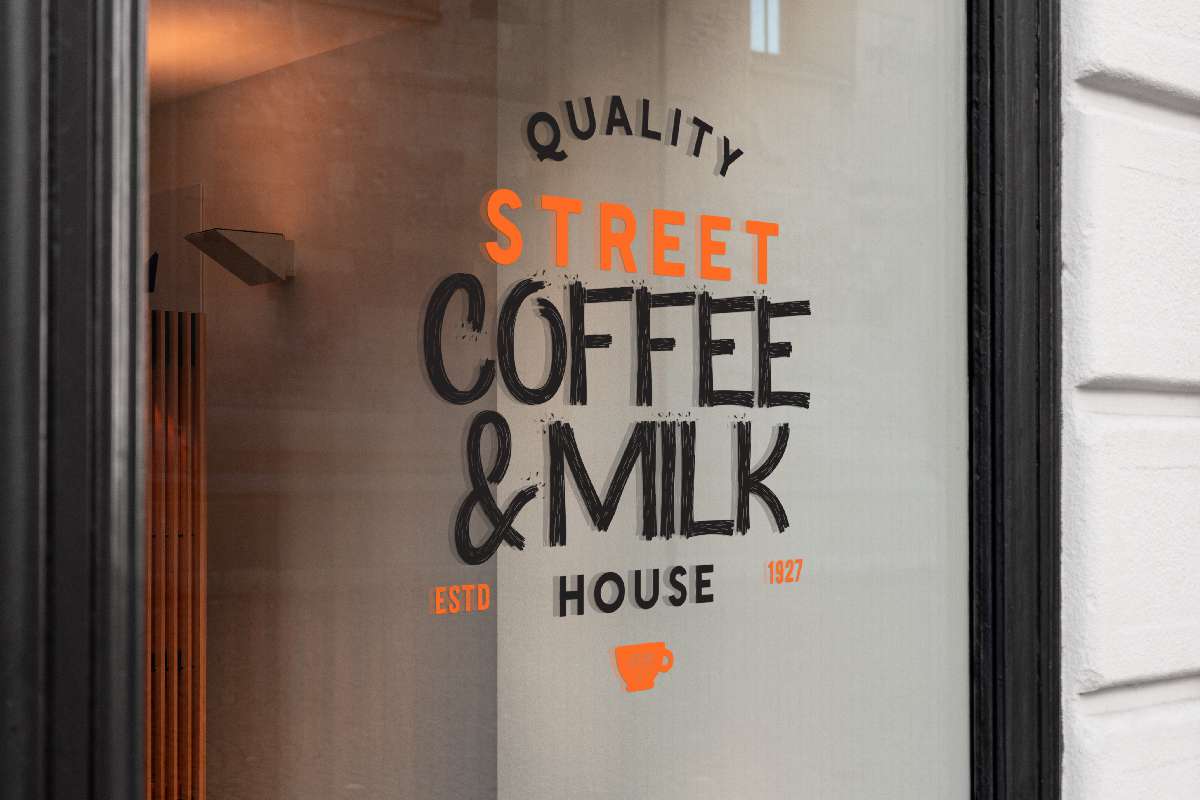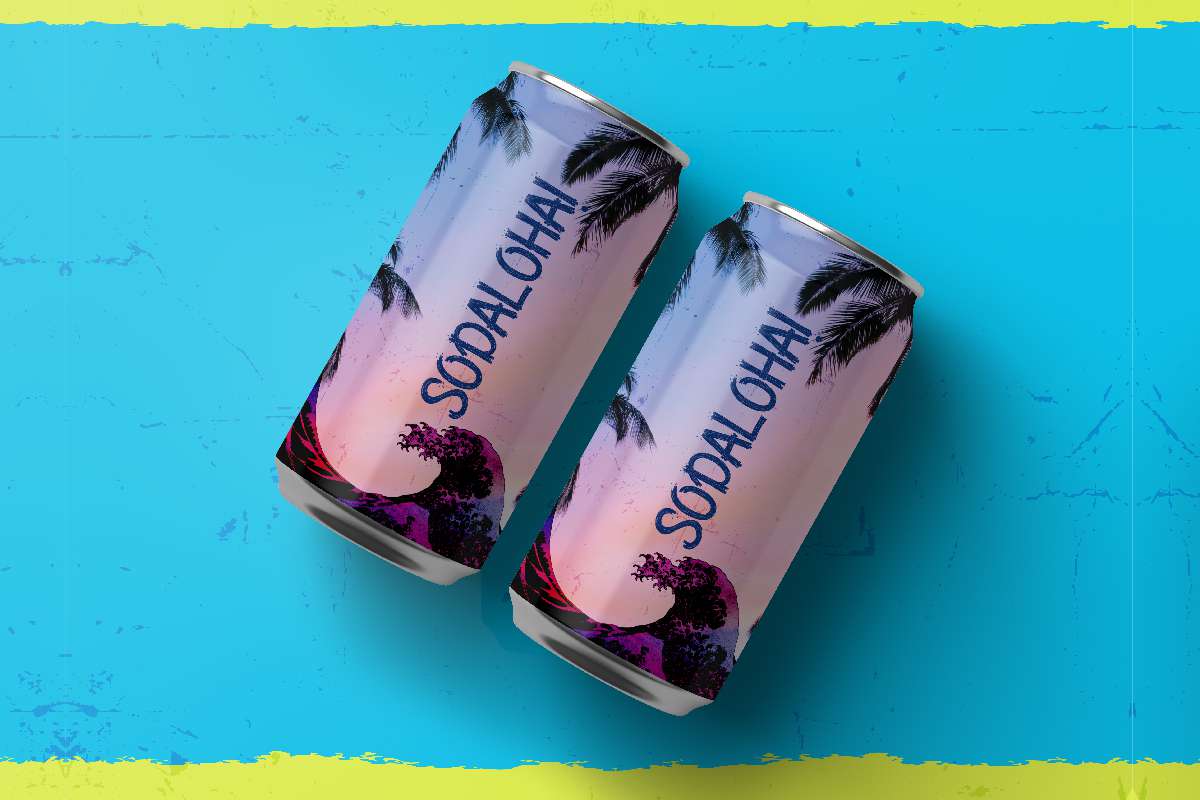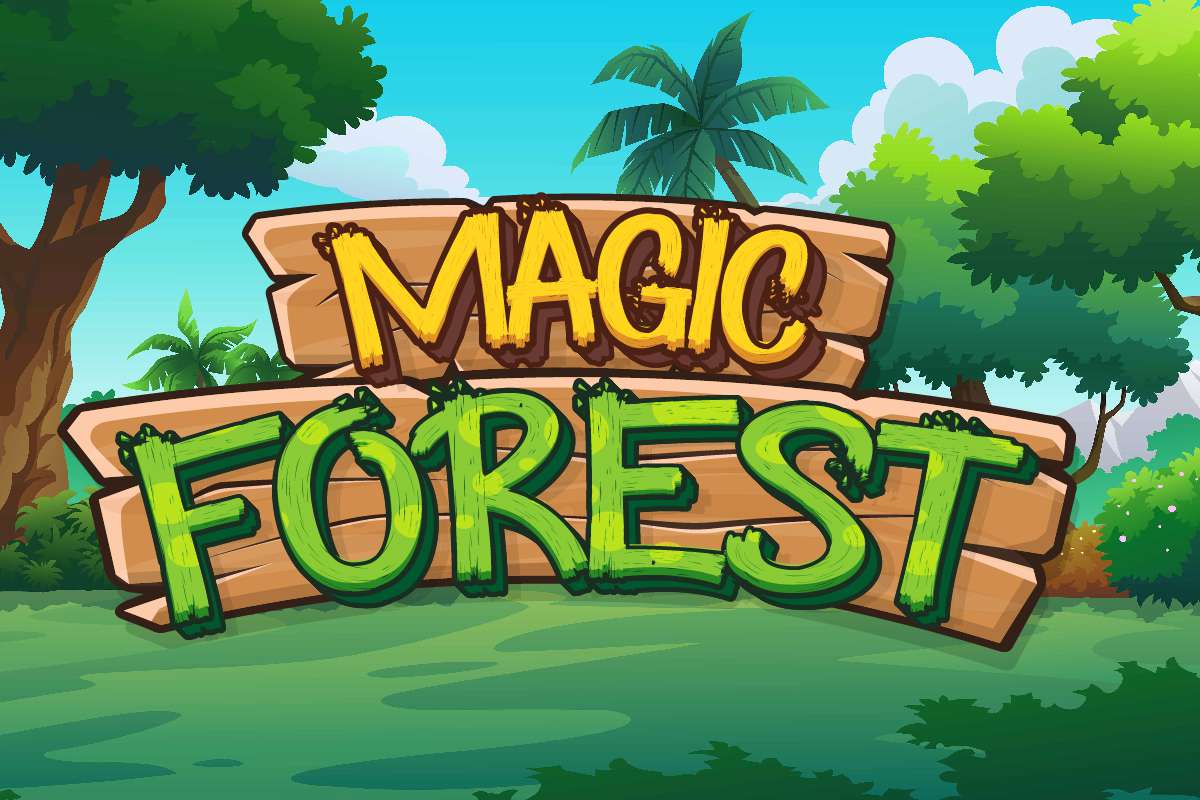
Donelson Font
Donelson Brush Font
It’s a grunge bold brush font with a gaming, mysterious style and all caps characters. This font is crafted carefully in every its single scratch, created to look as close to a actual brush so that it can create the perfect display on each glyph. When we make this font, we really want to create a touch that is so free-flowing that it gives a REAL impression on its use later.
Donelson Font includes full set of All Caps for upper and lowercase Basic Characters, Numerals and Punctuation. This awesome font is for anyone who needs a unique and bold textured style for their designs.